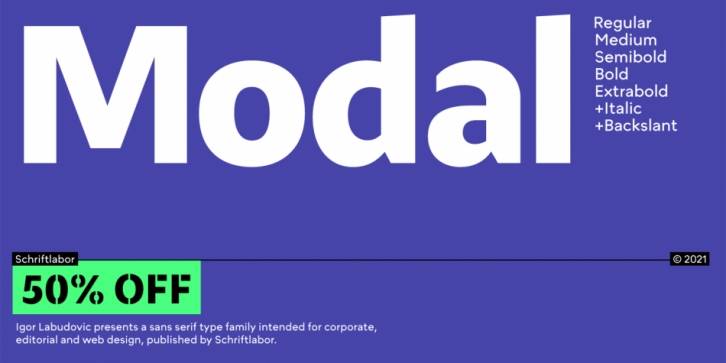
Publisher: Schriftlabor
Designed by Igor Labudovic, Modal is a sans serif font family. This typeface has fifteen styles and was published by Schriftlabor.
Modal is a sans serif type family intended for corporate, editorial and web design. Each weight comes with around 800 glyphs and supports a large variety of features such as ligatures, small caps, figure sets, case sensitive glyphs and so on. With its two italics, Modal offers new possibilities for designers and creates an additional tool for distinct typography.